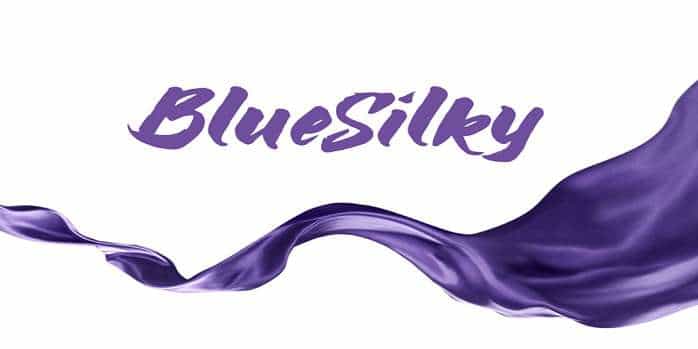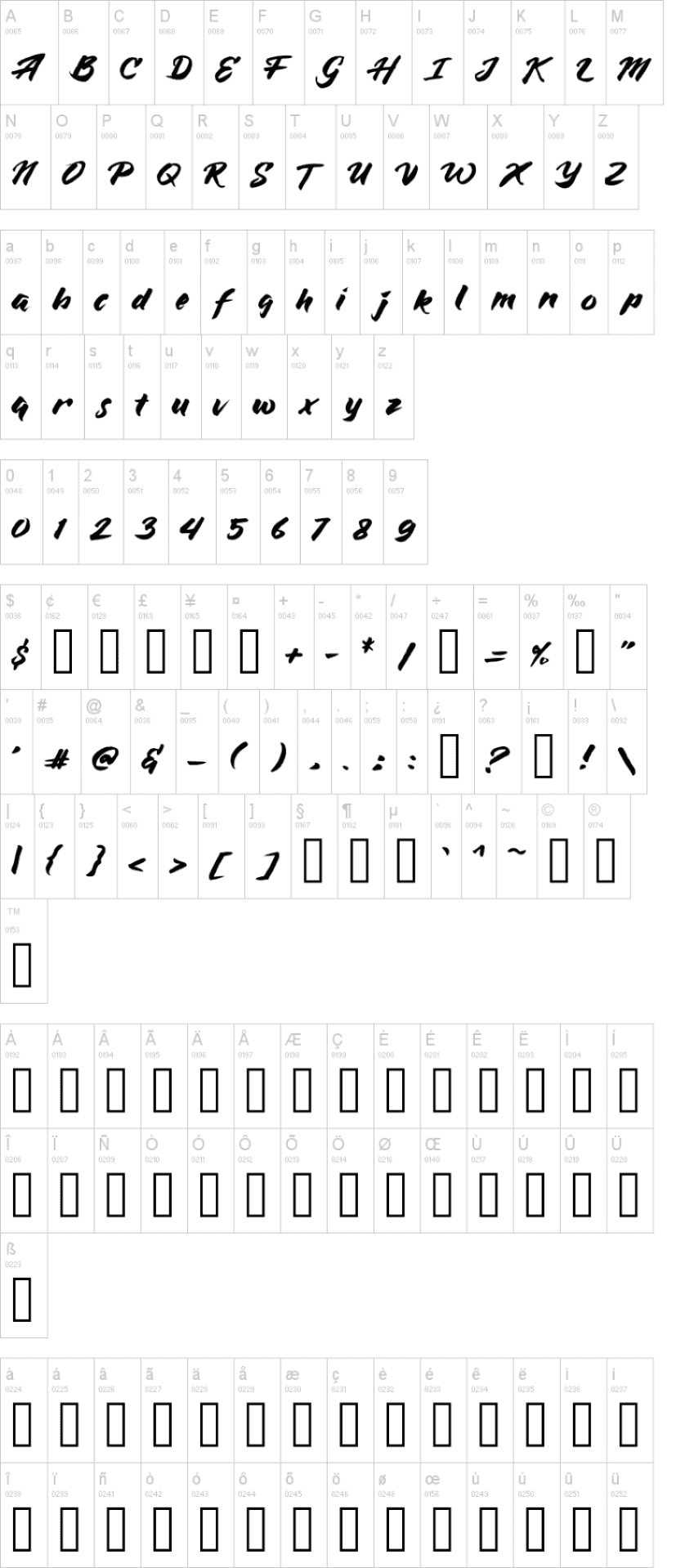
Discover Blue Silky Font, part of the Brush collection—a versatile and unique font perfect for adding a personal touch to your projects. Download it for free and enjoy crafting designs with style, from invitations to social media posts. This font is available exclusively for personal use, giving you the freedom to create without limits. Unlock your creativity with Blue Silky Font today!
Blue Silky is a high quality brush font that is designed by Haris Prawoto and is available for free download and personal use. The free version provides all uppercase and lowercase letters and a few special characters too.